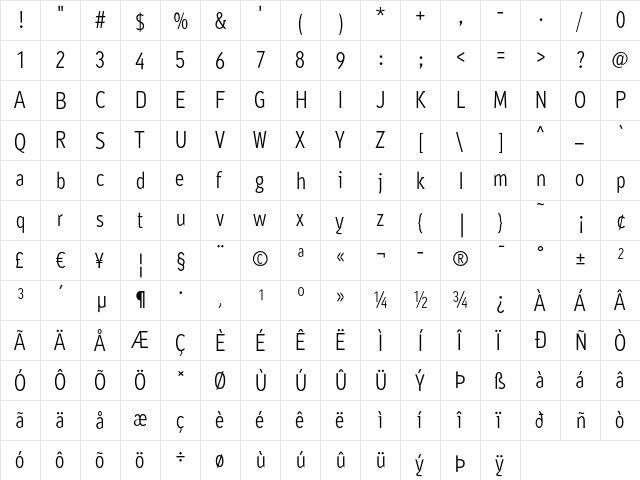
Ayumi Pro Regular Font Preview
Ayumi Pro Regular
Ayumi Pro Regular Font Details
| Foundry | Neil Summerour (Positype) |
| Designer | Neil Summerour (Positype) |
Design Context for Ayumi Pro Typeface
Ayumi Pro takes a measured approach to typography — its balanced proportions and neutral character make it a reliable workhorse for both digital and print work.